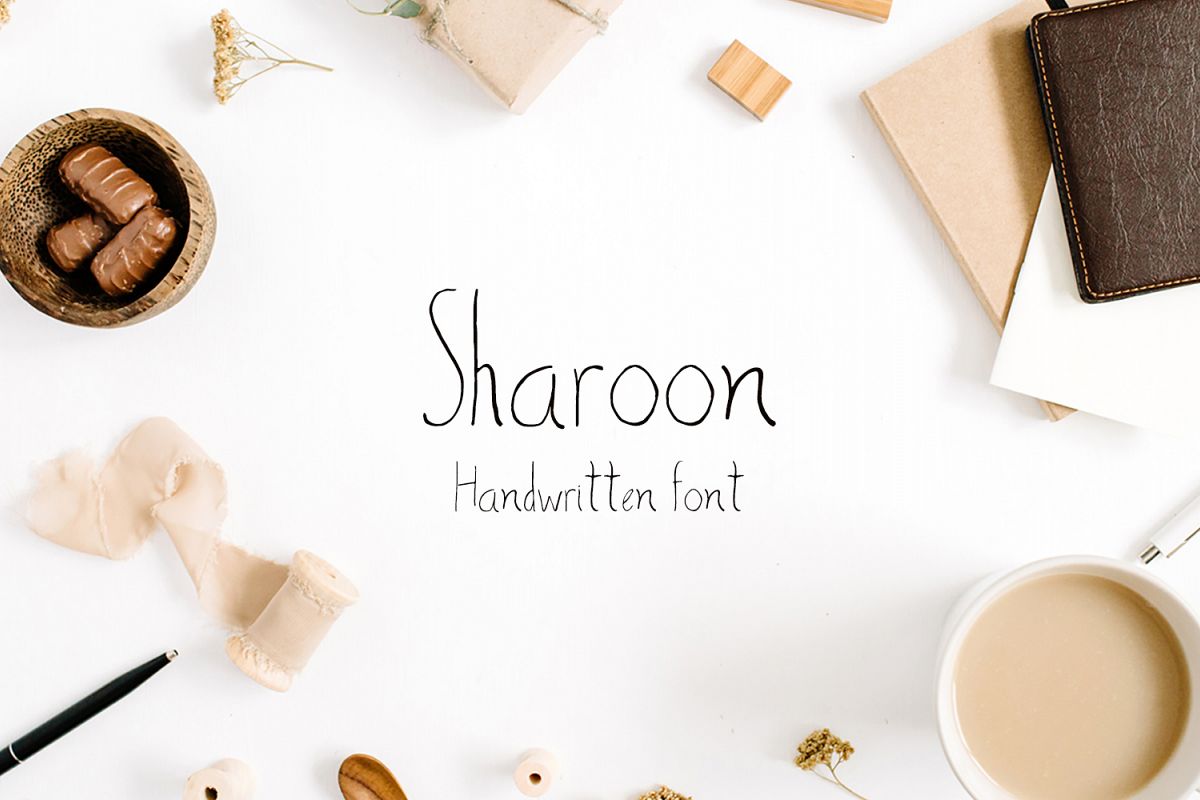
Sharoon Handwritten Sans Serif Font
Sharoon-Regular
Sharoon is a sweet handwritten font that is perfect for logos, quotes, invitations, badges, labels, packaging design, blog, websites, designs, headlines, banners, t-shirt/apparel, greeting card, wedding invitation and more.
Sharoon Font Features:
• Uppercase Multilingual Letters
• Lowercase Multilingual Letters
• Alternative